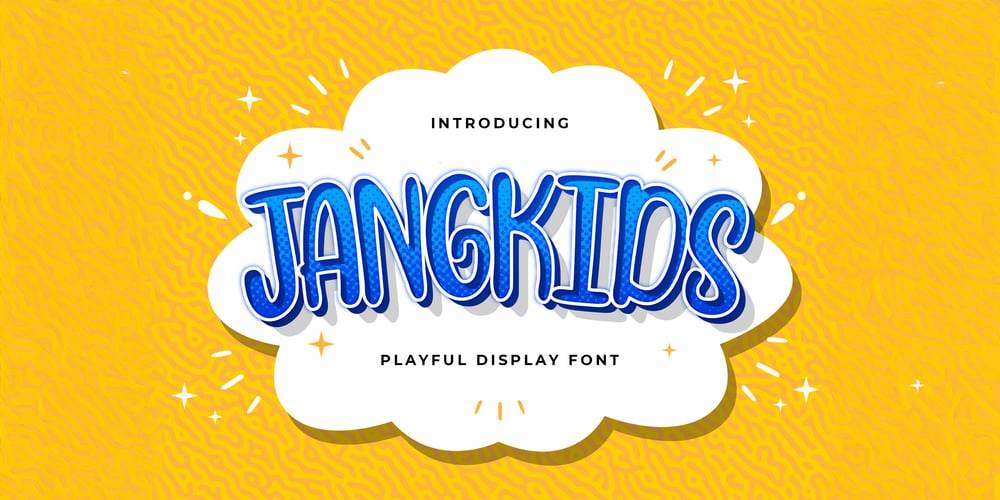
Jangkids Font Family was designed by Virgiawan Listanto and published by Stringlabs Creative Studio. Jangkids contains 1 styles and family package options. Jangkids is fun and whimsical display font designed to bring joy and personality to your designs. Make your designs stand out with Jangkids, the font that speaks the language of fun.